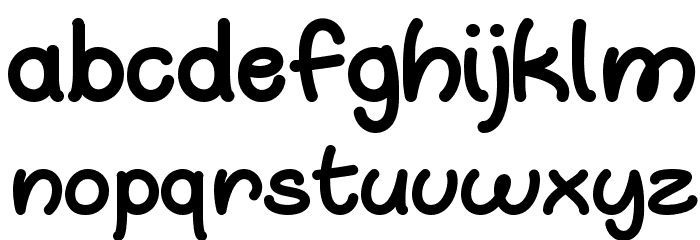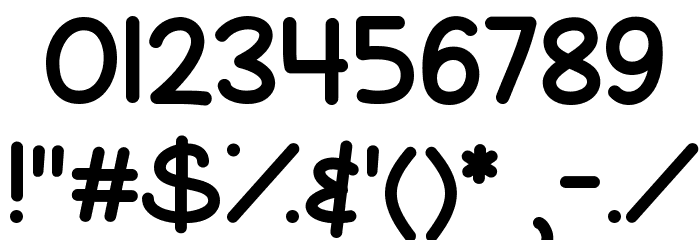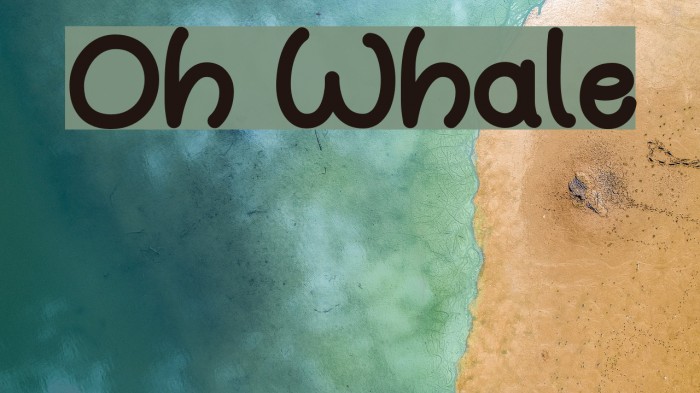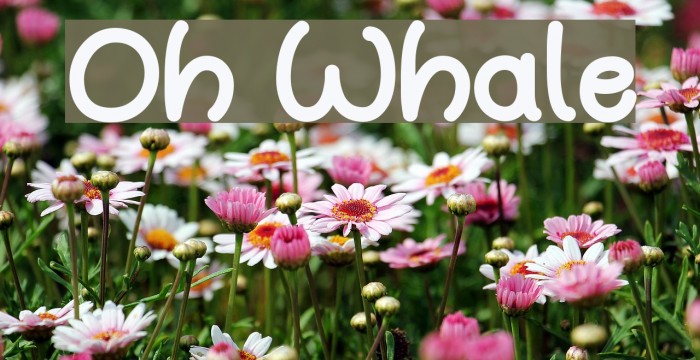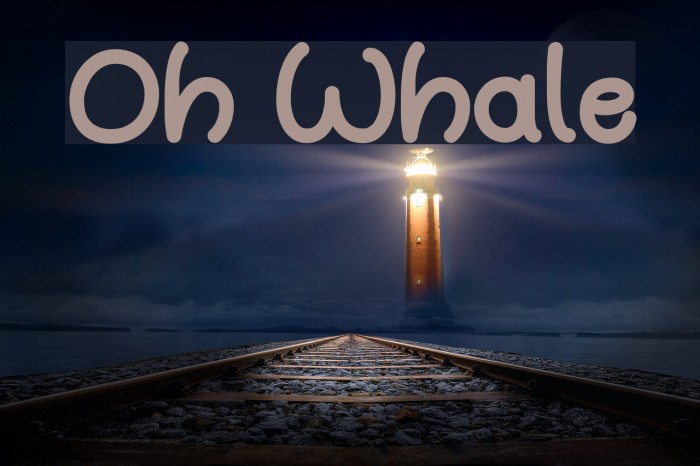
Oh Whale Font
This playful and whimsical font features rounded, bubbly characters that convey a sense of fun and friendliness. The letters are bold and slightly irregular, giving them a hand-drawn appearance that adds to their charm. The uppercase and lowercase letters maintain a consistent style, with smooth curves and a uniform thickness throughout. The numbers and special characters are equally playful, fitting seamlessly with the overall design. This font is perfect for projects that require a lighthearted and approachable feel, such as children's books, party invitations, or playful branding.
A playful, bubbly font with a hand-drawn, whimsical style.
- Proposed Projects: Ideal for children's books, party invitations, playful branding, and casual social media graphics.
- Overall Style: Playful
- Use Case: Headlines, Logos, Invitations